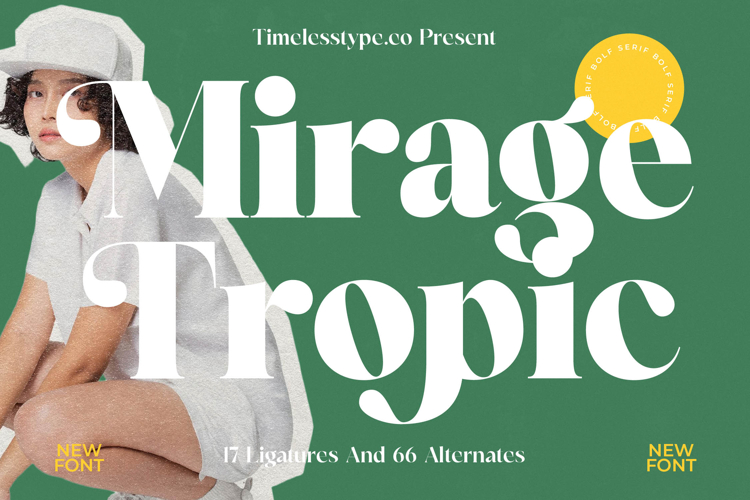
Mirage Tropic - Modern Serif Font
Elevate your design projects with a touch of timeless sophistication and modern elegance. Mirage Tropic - Modern Serif Font is a masterfully crafted high-contrast serif that blends classic charm with a contemporary bold aesthetic. Its striking thick-and-thin strokes create a commanding presence on the page, ensuring that your headlines and titles capture immediate attention with a refined editorial feel.
Unlocking creative potential has never been easier thanks to its comprehensive suite of decorative features. Featuring 17 ligatures and 66 alternates, Mirage Tropic - Modern Serif Font allows designers to achieve custom typography results without the need for manual adjustments. These unique flourishes provide a luxury aesthetic that makes every word feel bespoke, transforming standard layouts into premium design masterpieces.
Global accessibility is at the heart of this typeface’s expansive design philosophy. With its extensive multilingual support, Mirage Tropic - Modern Serif Font adapts seamlessly across global markets, making it incredibly versatile for international projects. Whether you are launching a brand in Paris or a digital campaign in Tokyo, this font maintains its visual integrity and legibility across a wide array of languages.
Tailored for high-end industries, this font is the ultimate choice for statement-making visuals. It is perfect for luxury branding, premium packaging, fashion editorials, and high-end logo design. By choosing Mirage Tropic - Modern Serif Font, you are investing in a versatile design asset that provides a chic, upscale look suitable for both digital displays and high-quality print production.